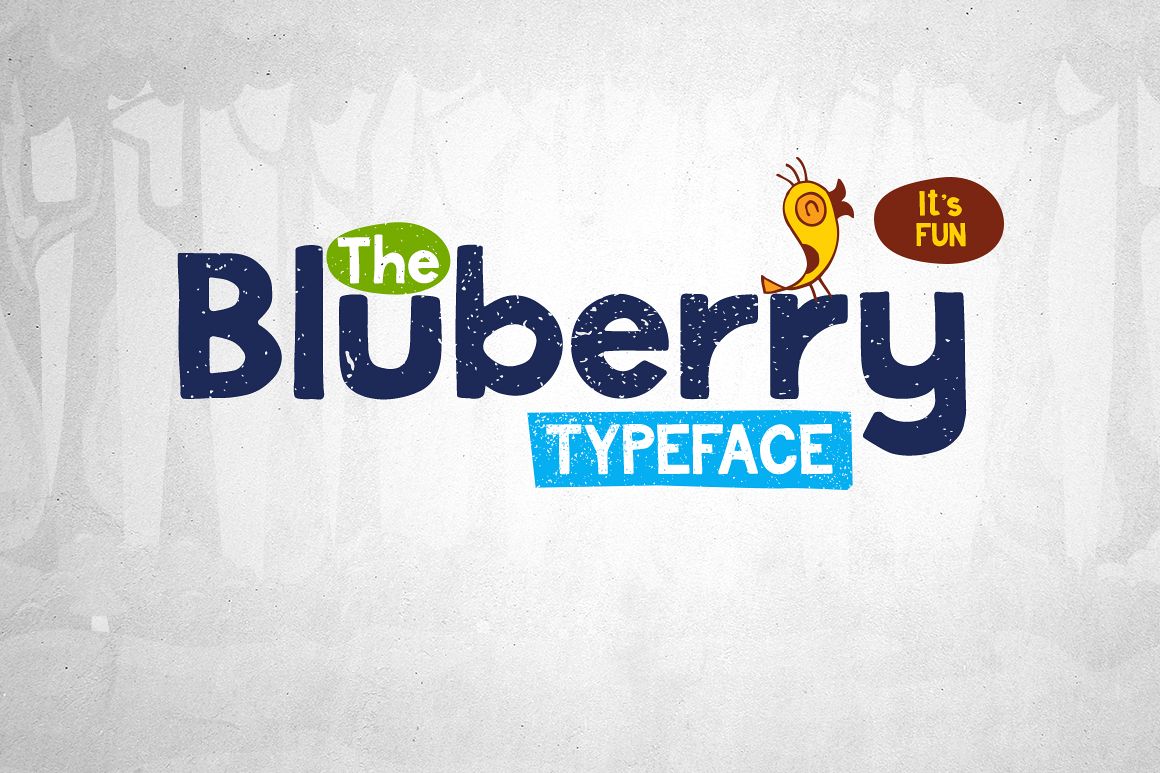
Bluberry Typeface
Bluberry Italic
Bluberry Outline
Bluberry Normal Update
Bluberry Shadow
Bluberry Grunge
Bluberry Normal goes fully Western European with 77 new glyphs
Hey! my name is Berry aka BluBerry. I wanna make your designs happy. Bluberry includes:
• Normal style
• Italic style
• Outlined style
• Grunge style
• Shadow style
• Uppercase, numerals, and punctuation